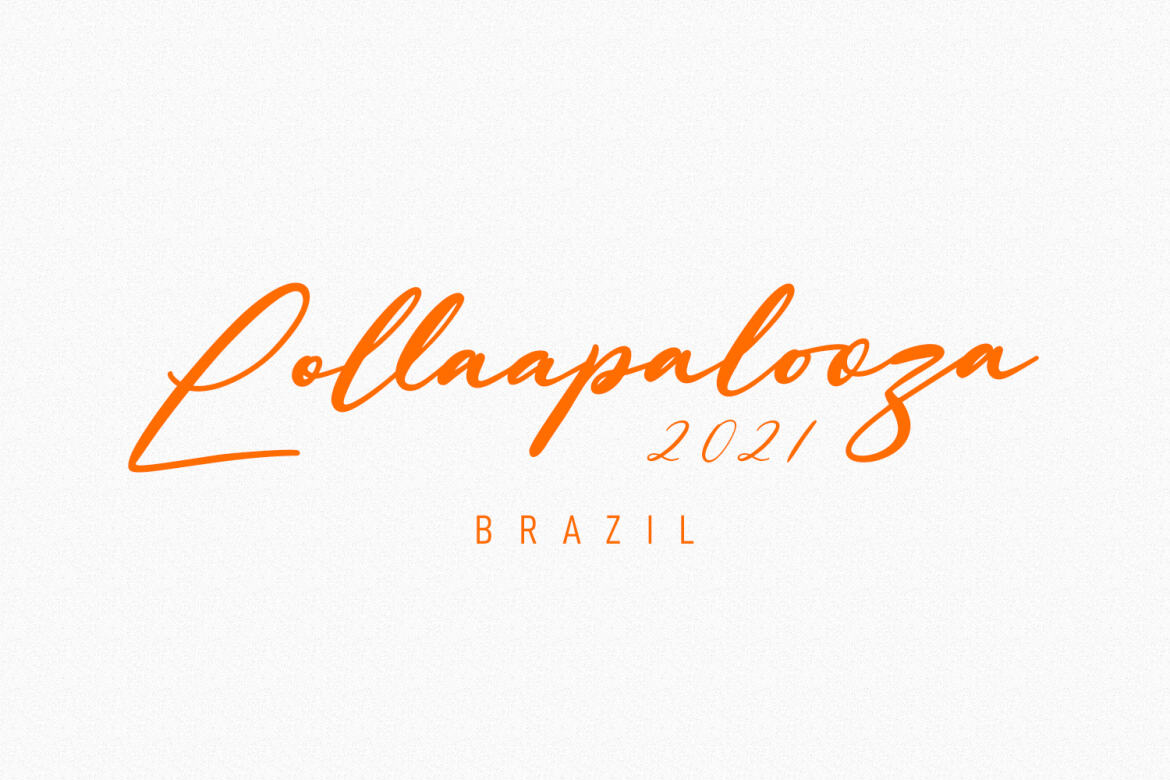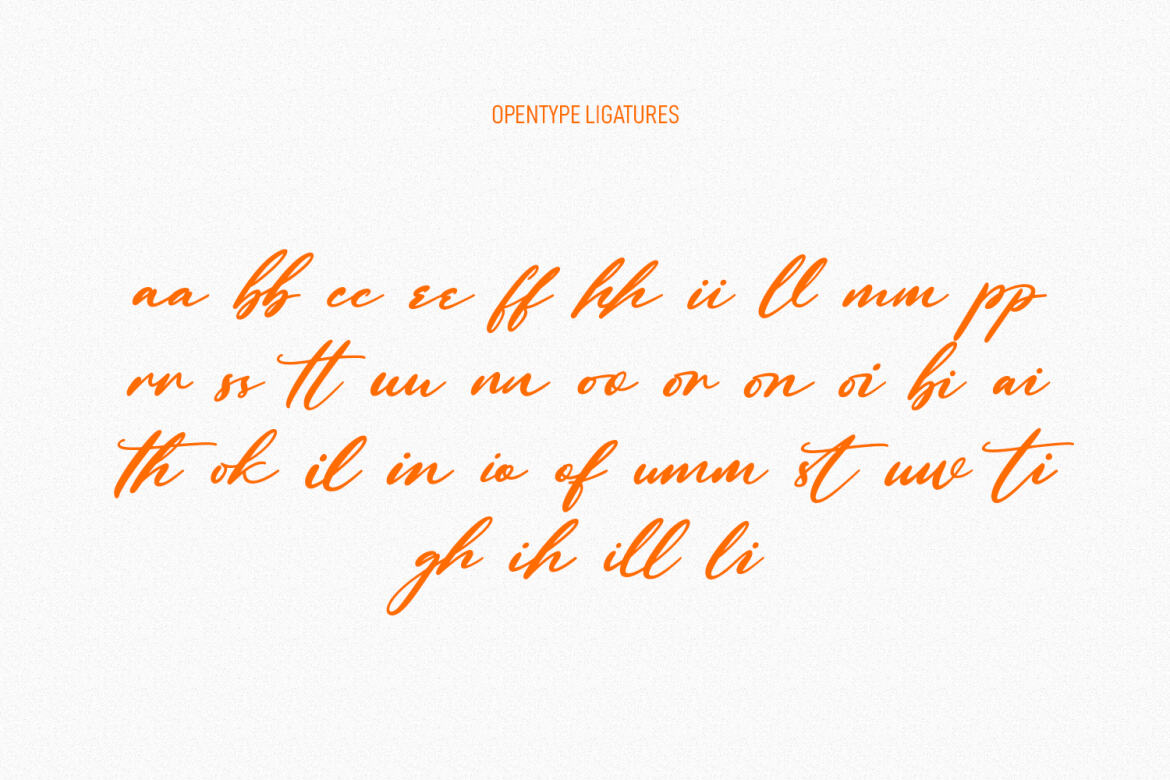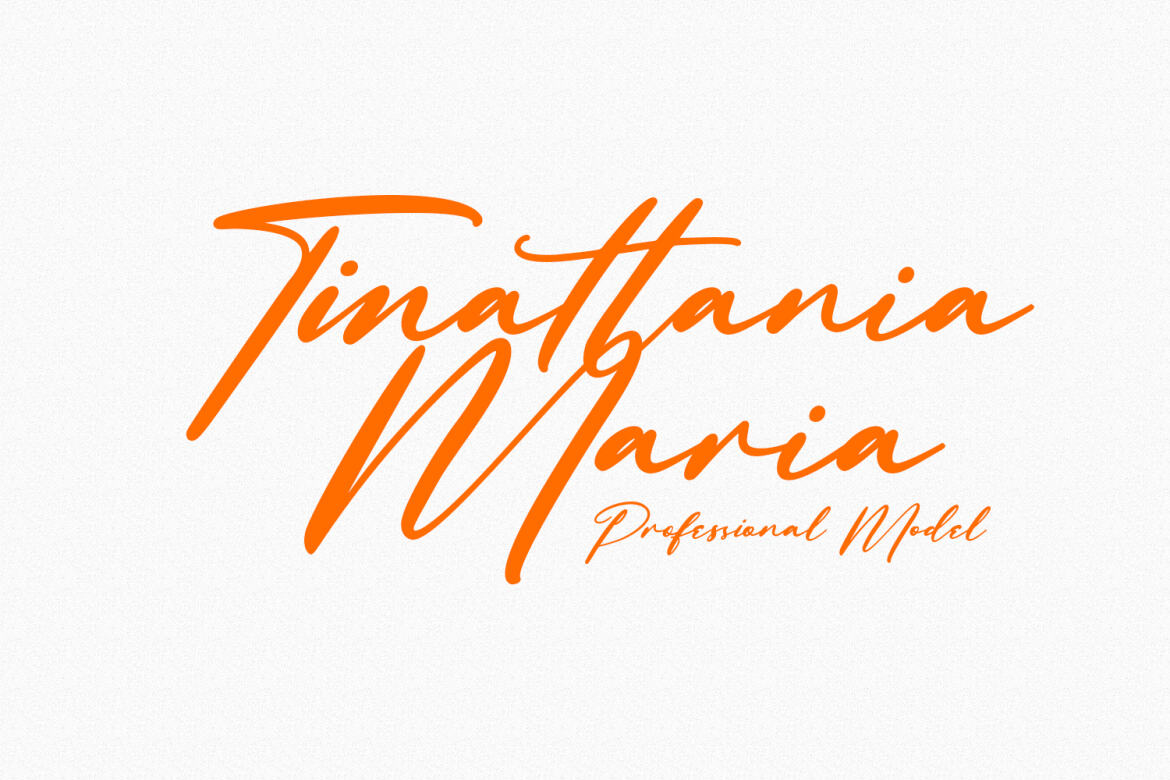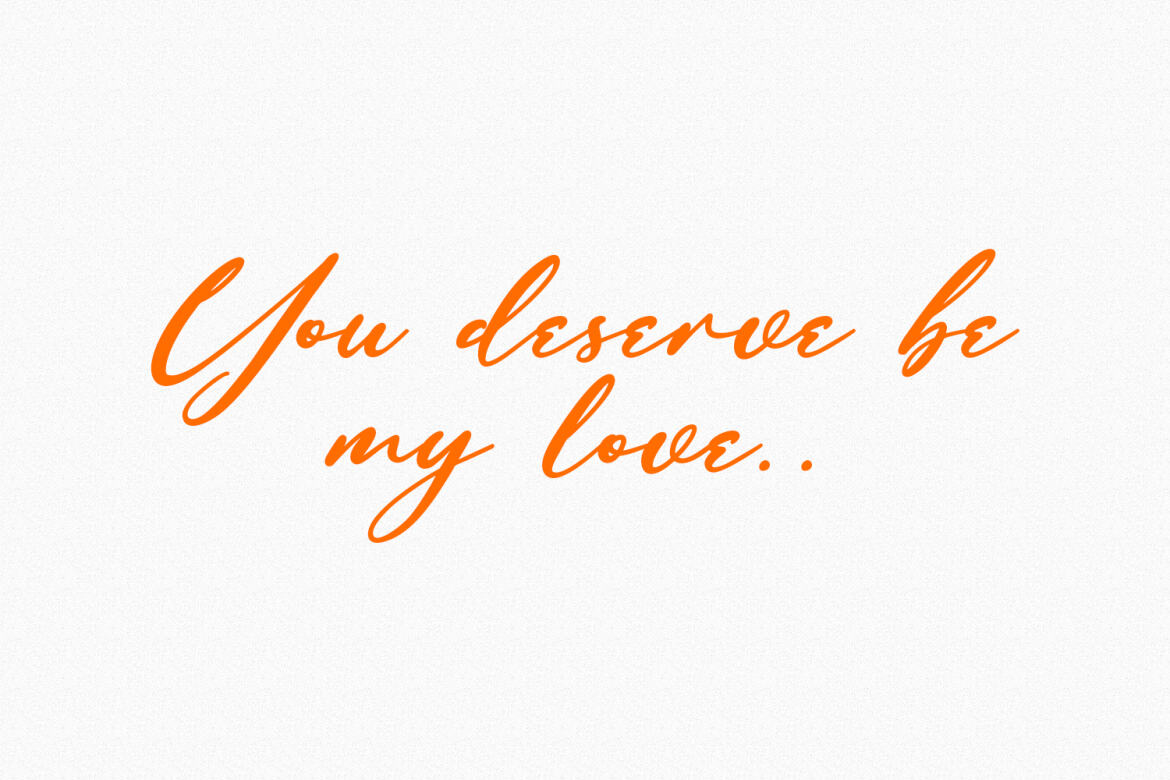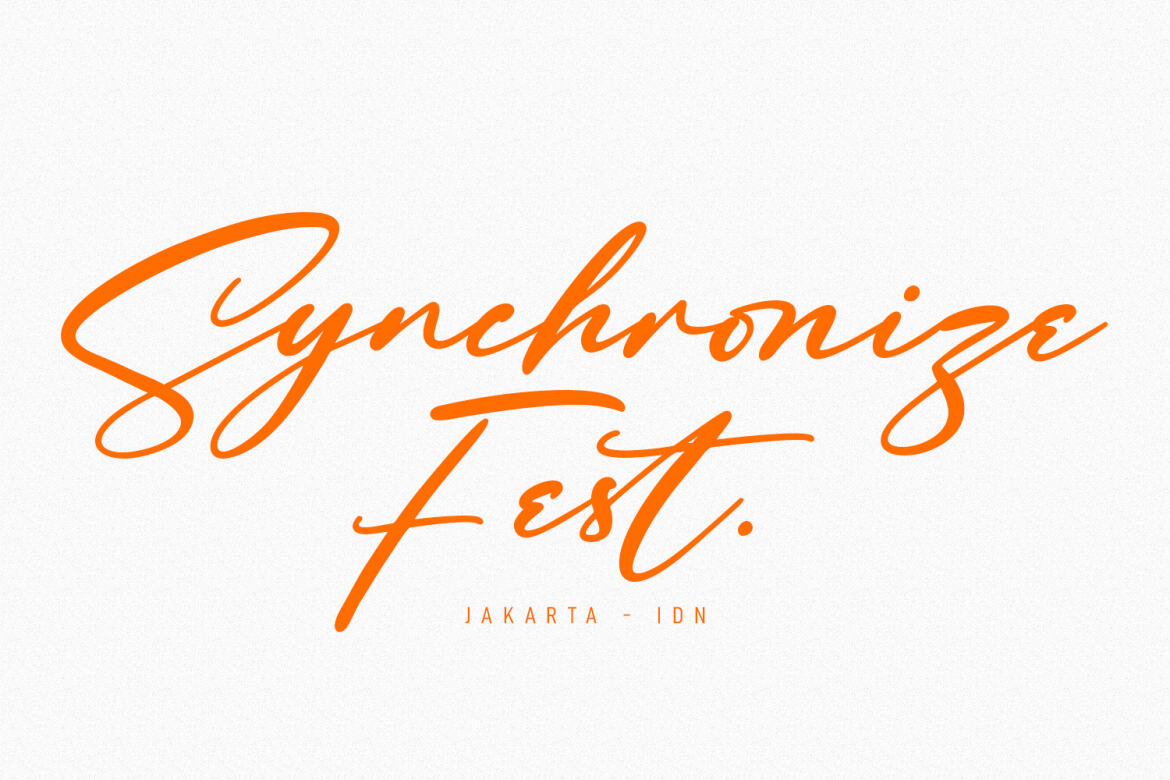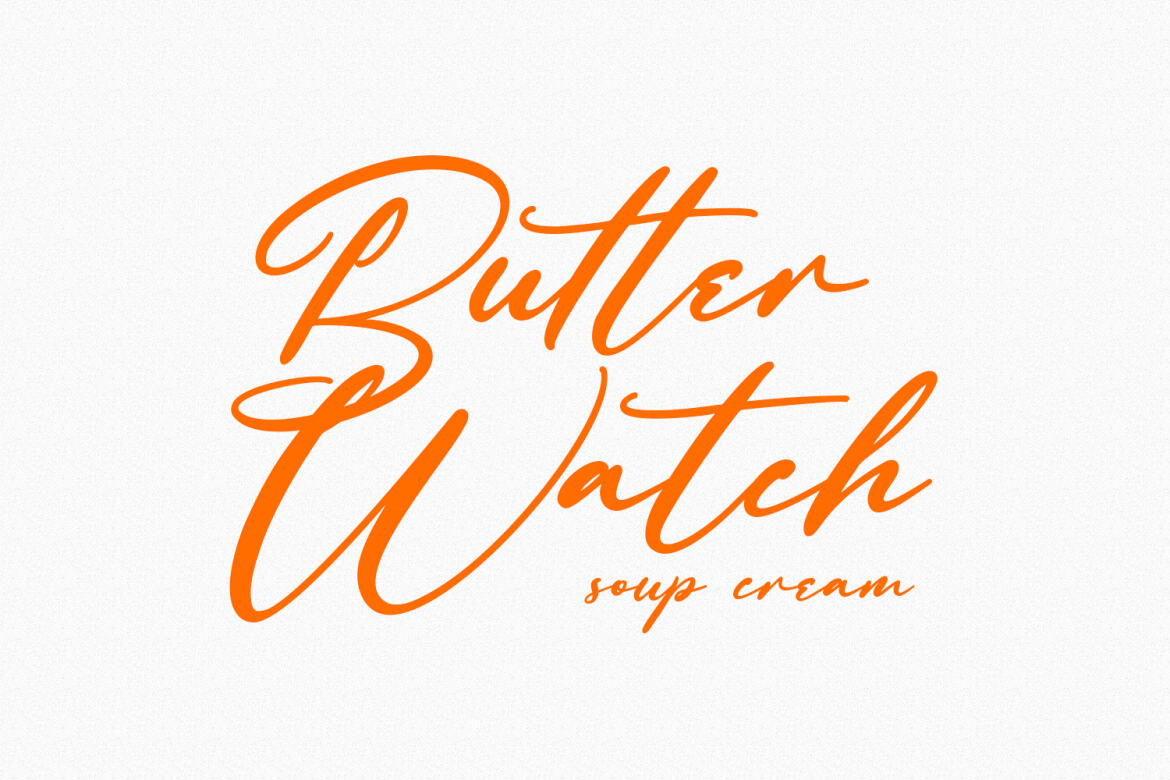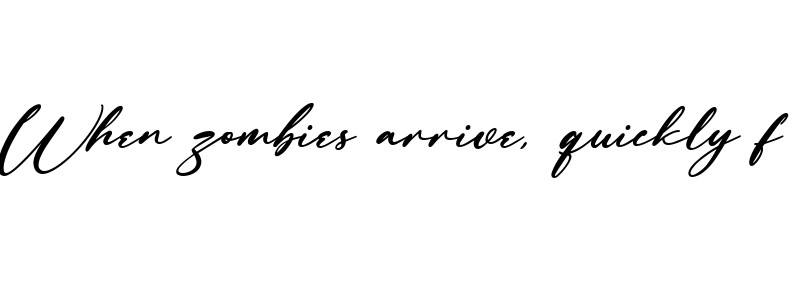
Klicktights - FREE Script Font
Klicktights
Klicktights is a casual signature script font. With high contrast regular stroke, fun character with a bit of ligatures. To give you an extra creative work. Klicktights font support multilingual more than 100+ language. This font is good for logo design, Social media, Movie Titles, Books Titles, a short text even a long text letter and good for your secondary text font with sans or serif. Make a stunning work with Klicktights font.